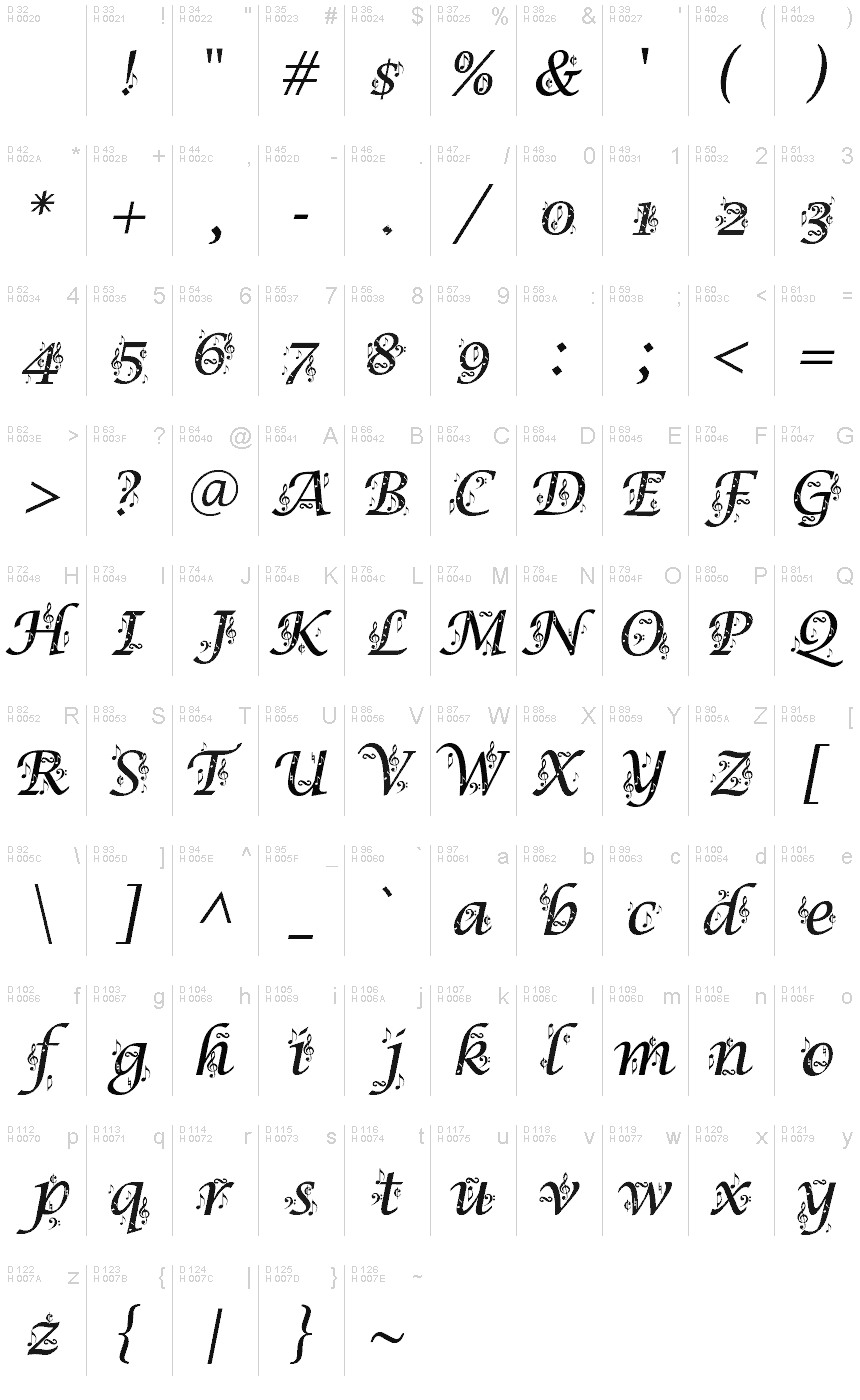
Symphony in ABC
Symphony in ABC, designed by pearlygates, strikes a harmonious chord in the realm of display fonts with its decorative flair and semi-light weight. Its ornate details dance on the page, inviting viewers into a visual concerto of stylized characters. The font's aesthetic appeal lies in its intricate flourishes that echo the elegance of calligraphic masterpieces while maintaining legibility. Its unique style is well-suited for projects that require a touch of sophistication without sacrificing modern readability.
Whether gracing the cover of an invitation or setting the tone for branding materials, Symphony in ABC brings an artistic quality to any creative endeavor. The decorative nature of this font makes it an excellent choice for titles, headers, and any application where a touch of distinction is desired. With Symphony in ABC, designers can compose a visual melody that resonates with their audience's sense of beauty and refinement.